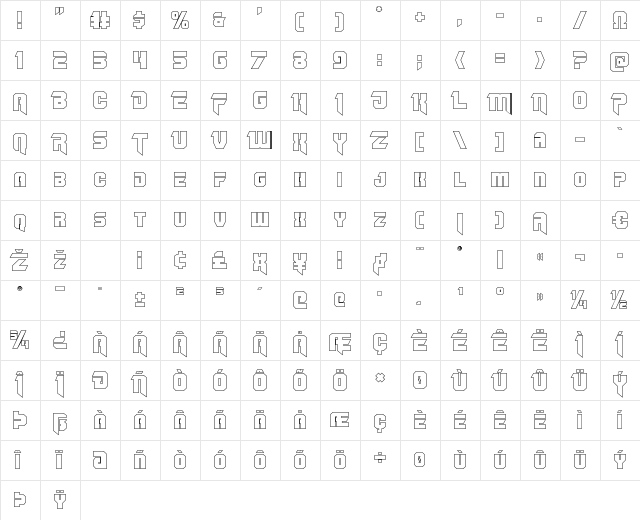
OmegaForce Outline Regular
Design Context for OmegaForce Outline Typeface
OmegaForce Outline has the bold swagger of sports branding: strong, assertive letterforms designed to dominate headlines and jerseys alike.
Built for sports team identities, athletic apparel, event posters, and high-energy promotional material.
Pro Tip: OmegaForce Outline thrives on contrast — try it large, bold, and tight against a clean background for maximum visual impact.